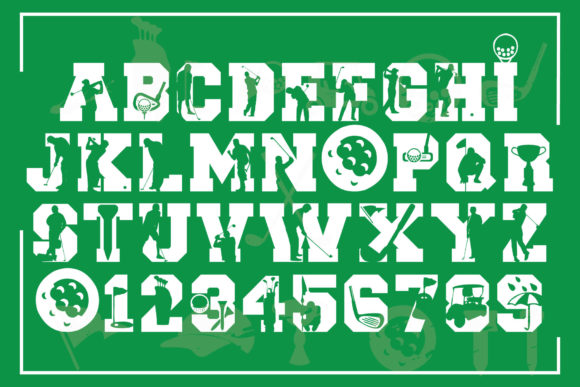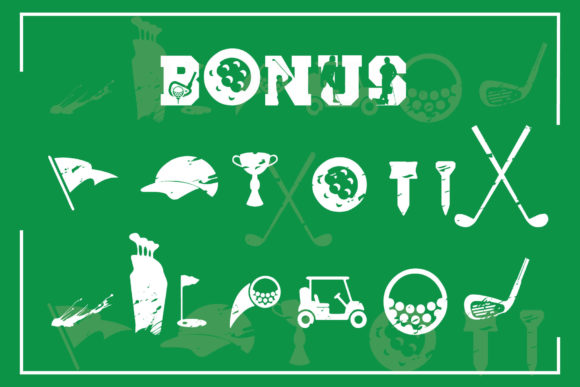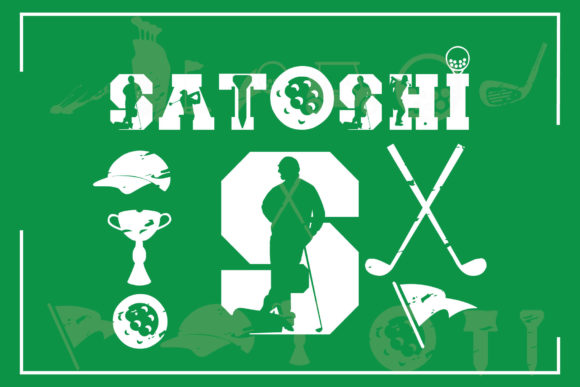
The Ultimate Golf Mania Font Guide: Elevate Your Golf-Themed Creations
I’ll never forget the time I was working on a golf-themed project for a client, and I just couldn’t find the right font to bring it all together. The design was sleek, the colors were perfect, but something was missing. That’s when I stumbled upon the Golf Mania font, and it instantly took my design to the next level. If you’re a designer, crafter, or creative hobbyist looking to add a bold and sporty touch to your golf-related creations, you’re in the right place.
An Honest Review of Golf Mania Font
So, what makes Golf Mania font so special? Let’s dive into the good stuff and a few quirks I’ve noticed.
- ✨ Bold and Sporty: Golf Mania font is incredibly cool, with a bold and sporty vibe that’s perfect for golf-themed designs.
- ✅ Easy to Read: Despite its boldness, the font is surprisingly easy to read, even at smaller sizes.
- 🎨 Versatile: Golf Mania font works well for a variety of design projects, from logos and posters to social media graphics and more.
While Golf Mania font is amazing, there are a few things to keep in mind:
- 🤔 Limited OpenType Features: Golf Mania font has some OpenType features, but it’s not as extensive as some other fonts on the market.
- ⚠️ Not Suitable for Body Text: Due to its boldness, Golf Mania font is best used for headlines and titles, rather than body text.
The Backstory of Golf Mania Font
While I couldn’t find any information on the designer’s inspiration, it’s clear that Golf Mania font was created with golfers and designers in mind. The font’s bold and sporty vibe makes it perfect for golf-themed designs, from logos and posters to social media graphics and more.
Q: What type of designs is Golf Mania font best suited for?
A: Golf Mania font is perfect for golf-themed designs, such as logos, posters, social media graphics, and more.
Q: Is Golf Mania font available in different weights or styles?
A: Currently, Golf Mania font is available in a single weight, but it’s bold and sporty enough to make a statement in most designs.
Q: Can I use Golf Mania font for body text?
A: While Golf Mania font is easy to read, it’s best used for headlines and titles due to its boldness.